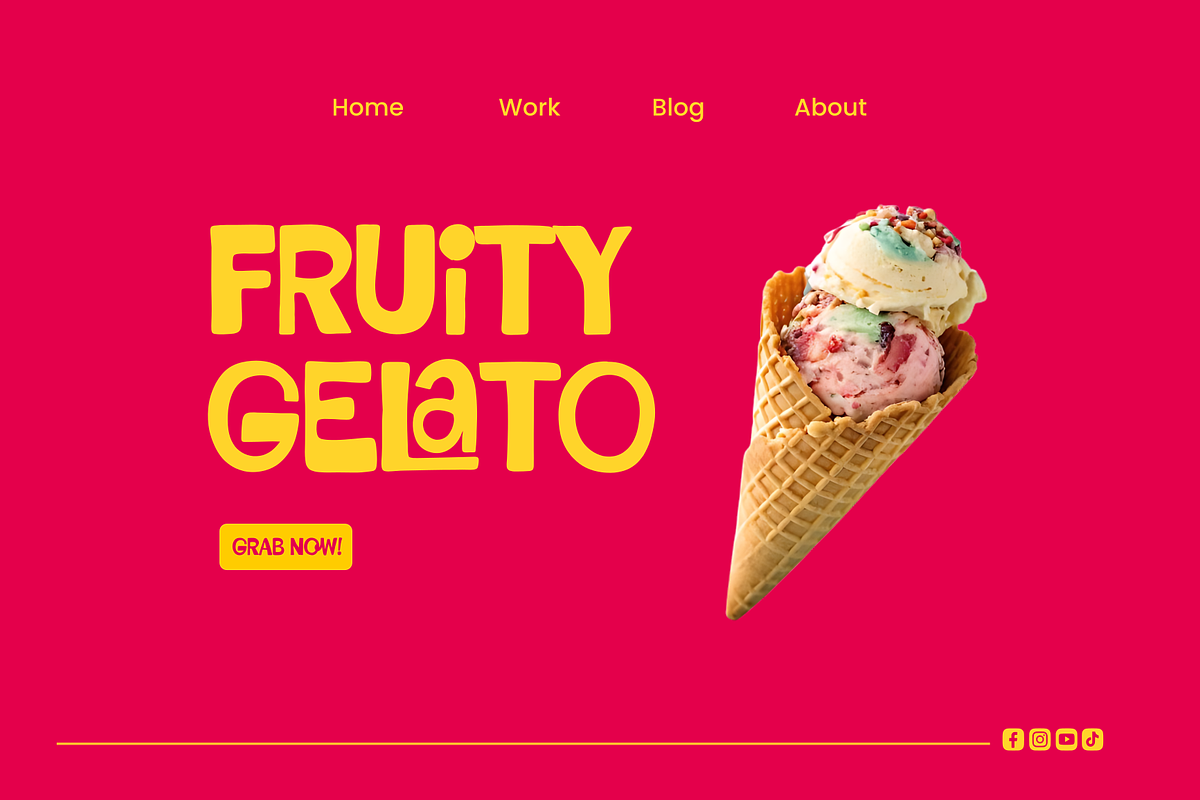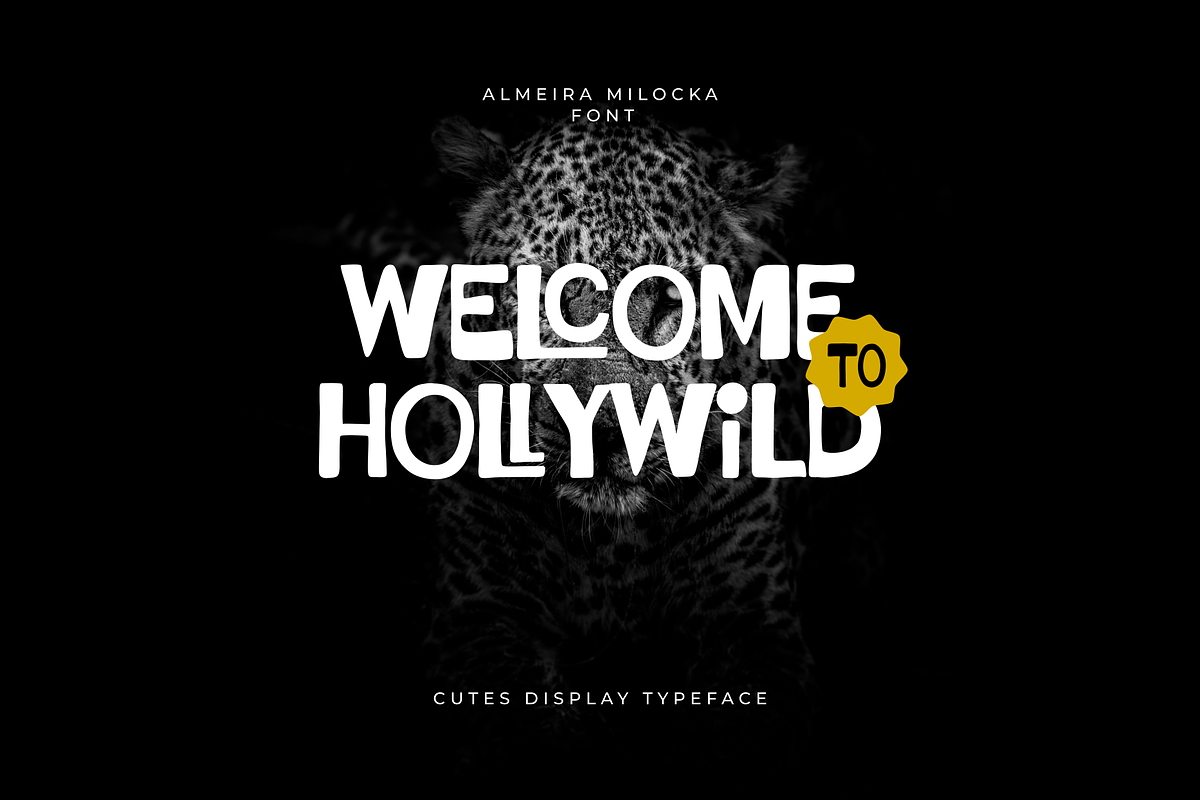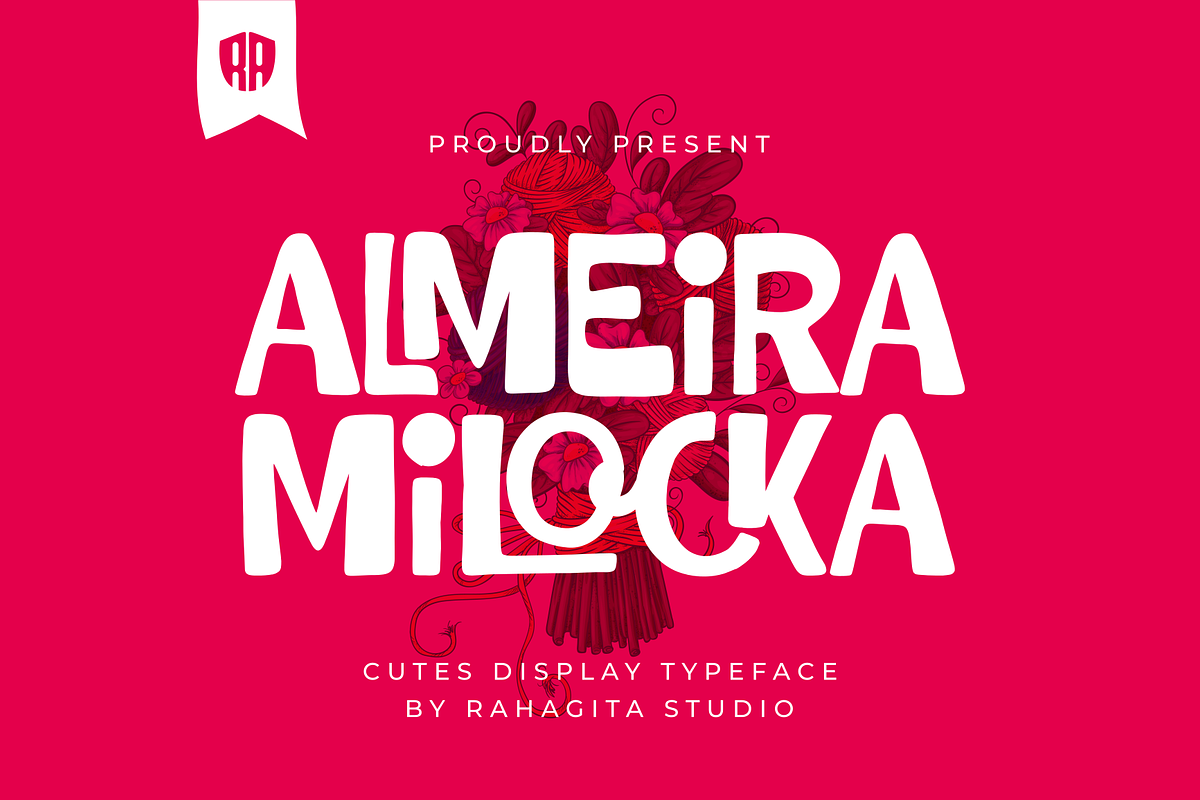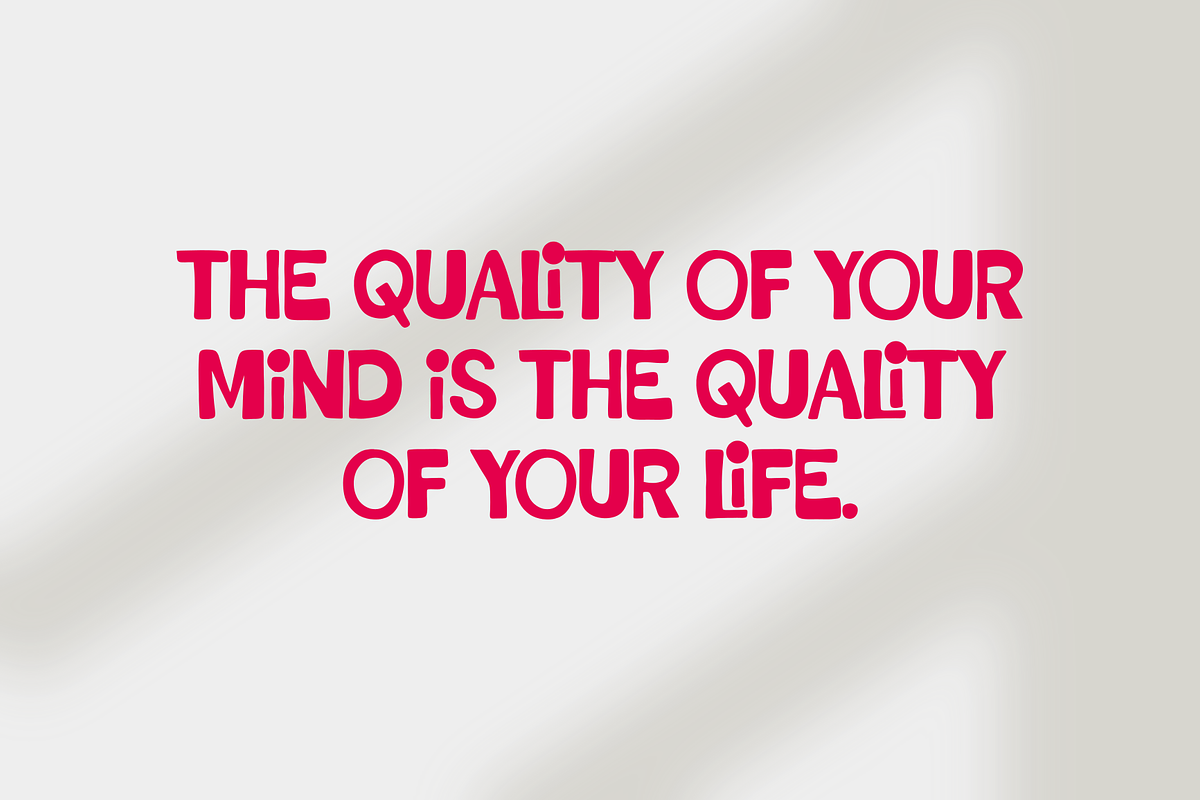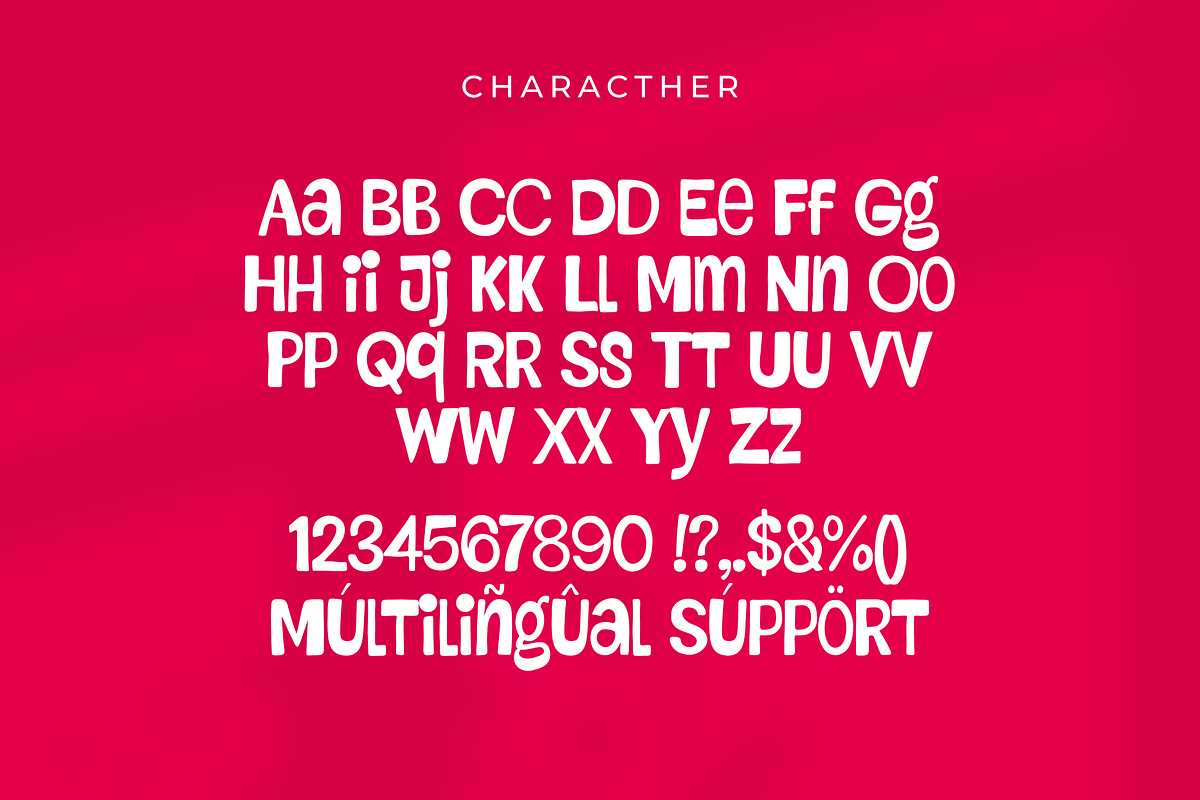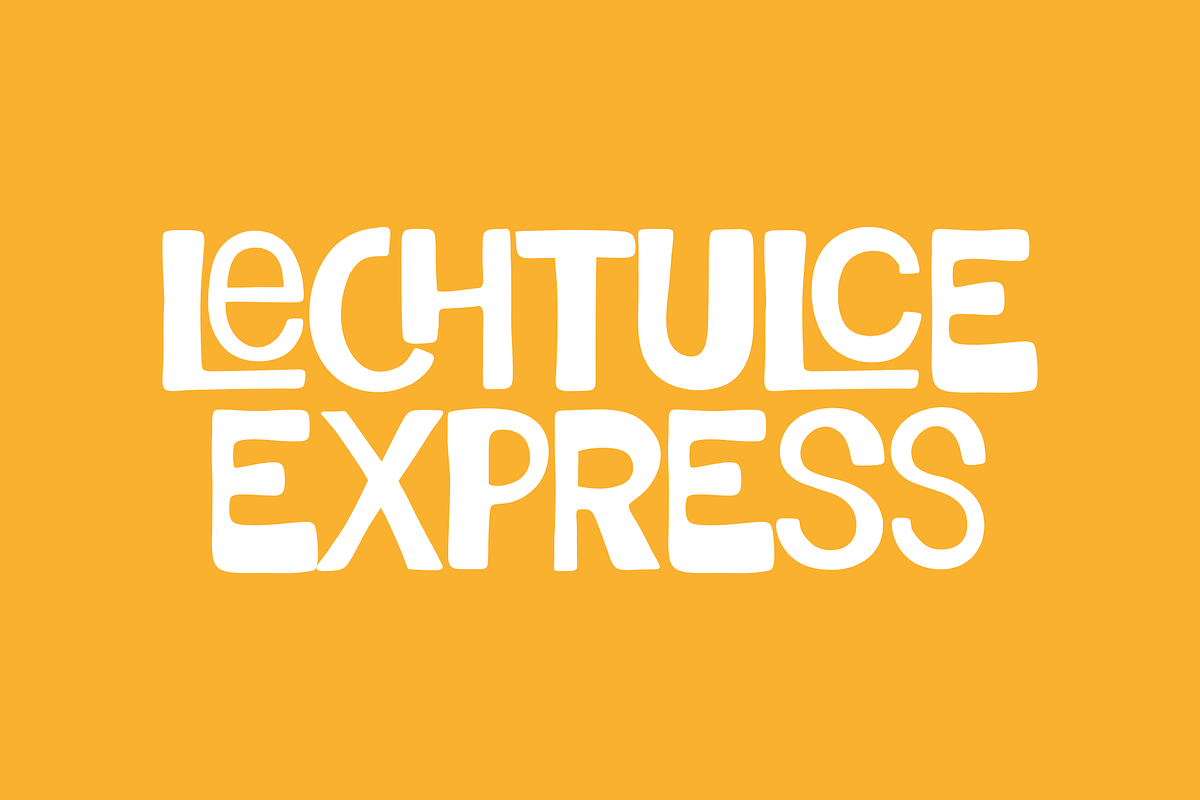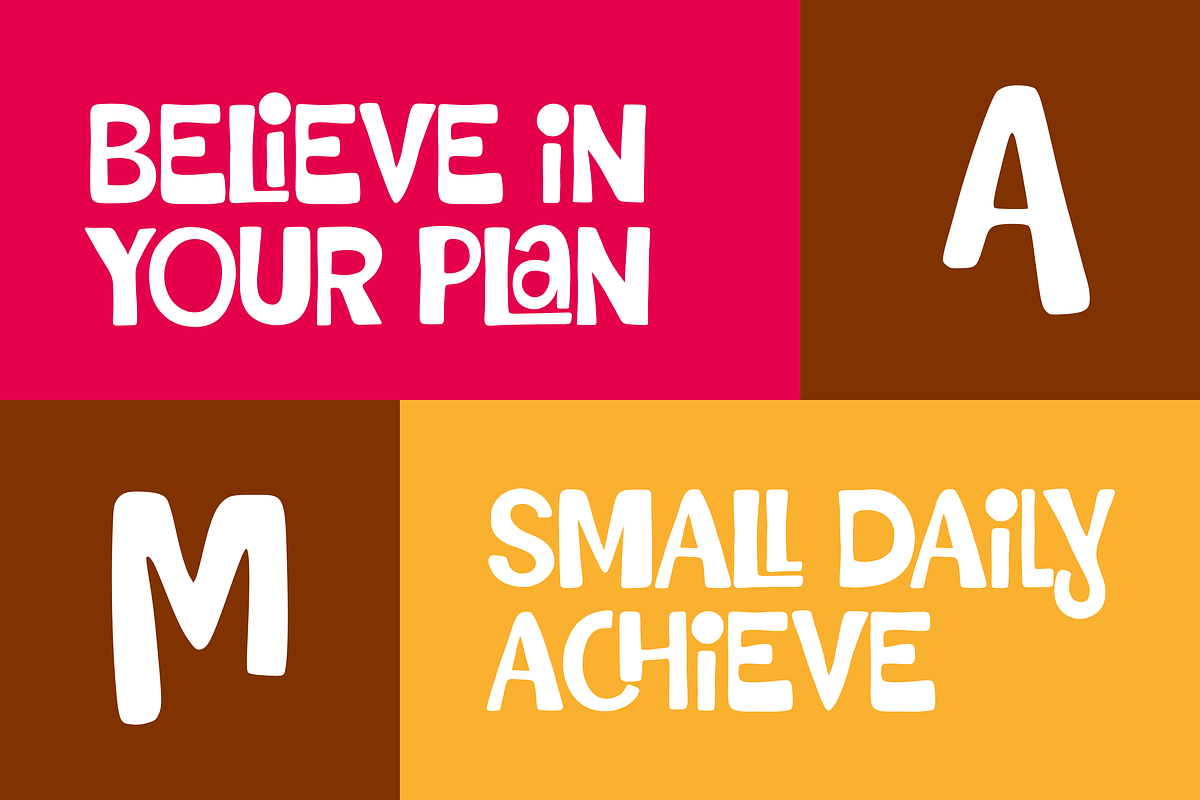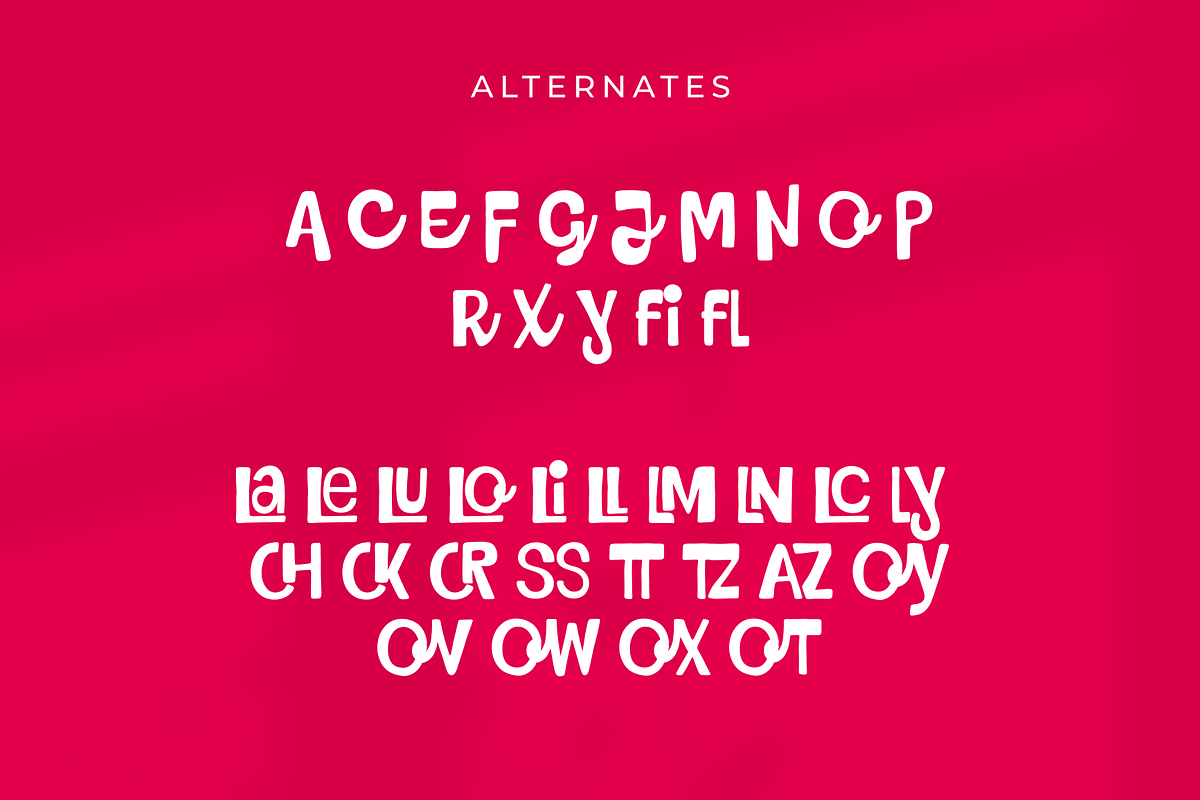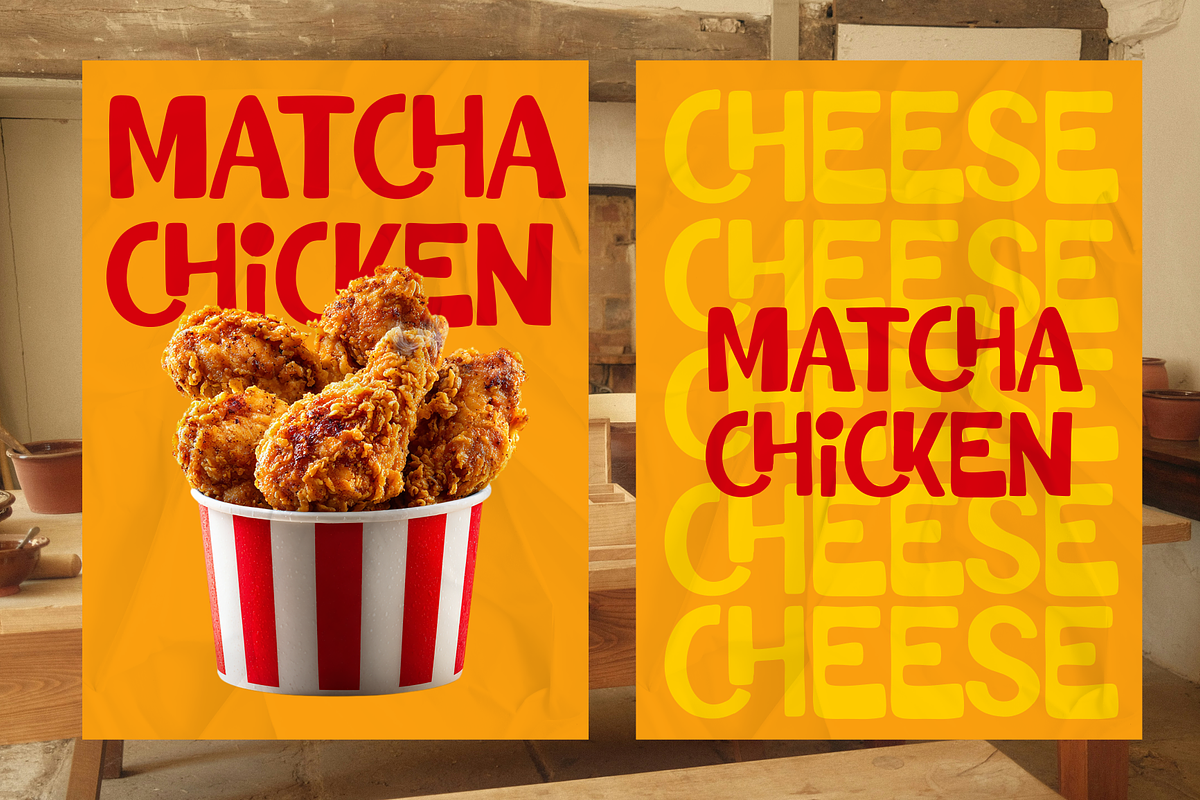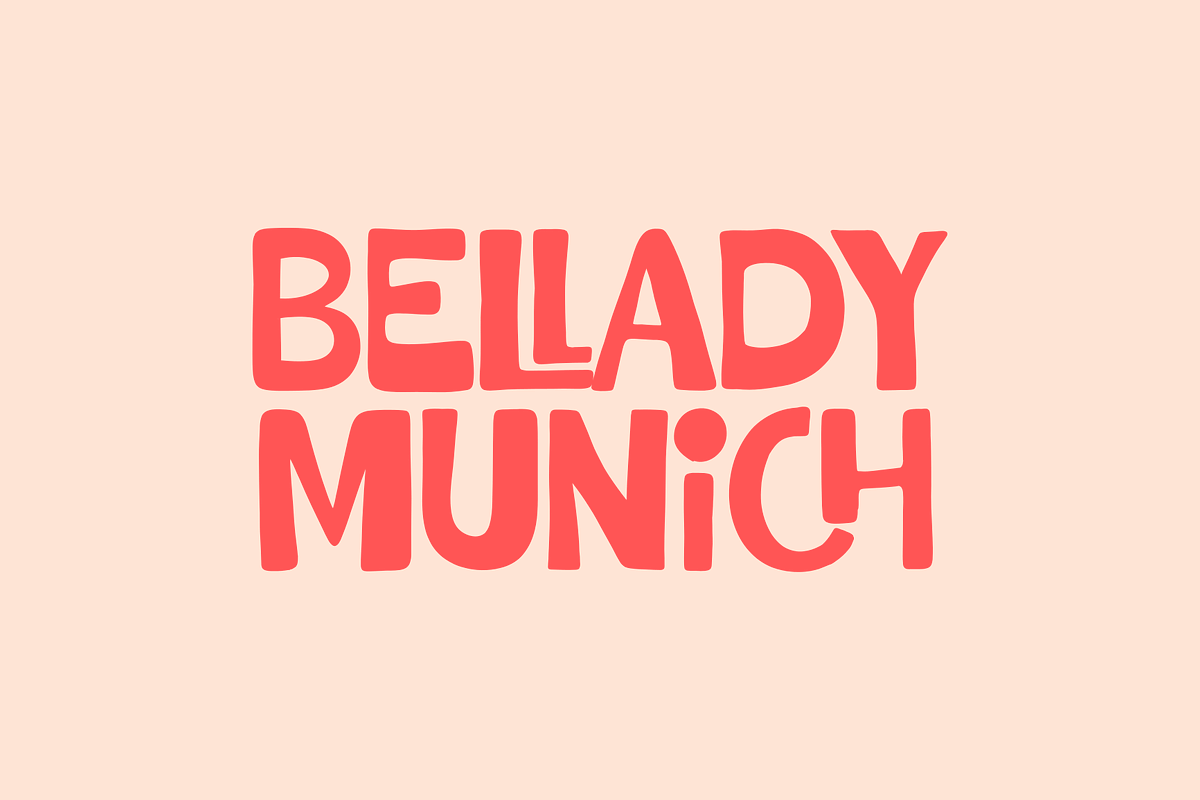
Almeira Milocka
Almeira Milocka is a fun, bold, and expressive display typeface designed to bring joy and personality to any project. With its playful curves, quirky letterforms, and charming handwritten feel, this font is perfect for branding, children’s products, food packaging, posters, social media content, and creative advertising. Almeira Milocka also includes stylistic alternates and multilingual support, giving designers the flexibility to craft unique and engaging typography. Elevate your visuals with a typeface that is cheerful, modern, and full of character.